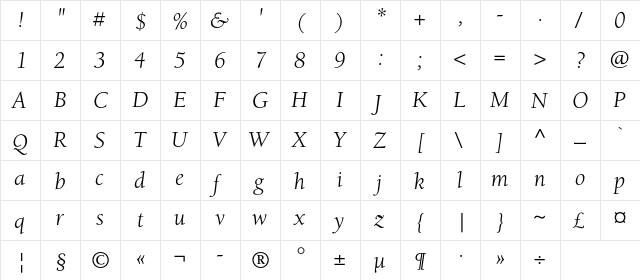
Alliance-Italic Regular
Design Context for Alliance-Italic Typeface
Alliance-Italic is a composed and adaptable typeface that performs quietly and consistently across a wide range of design contexts. The dynamic lean of this cut emphasises speed and emphasis in any layout.
Pro Tip: Try Alliance-Italic for annotation and caption copy alongside an upright companion — the contrast in angle creates a dynamic but ordered typographic system.